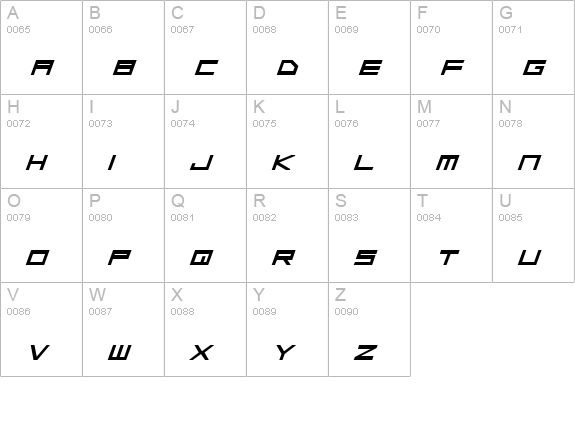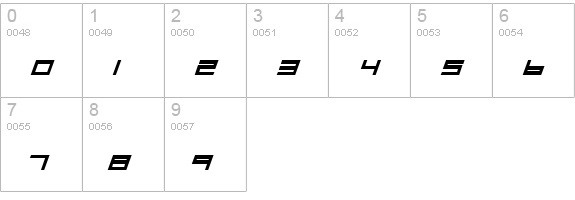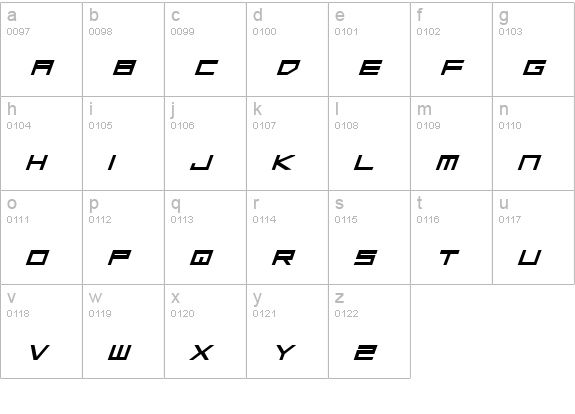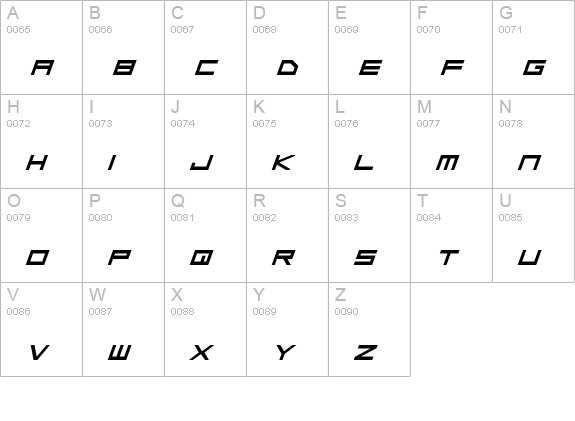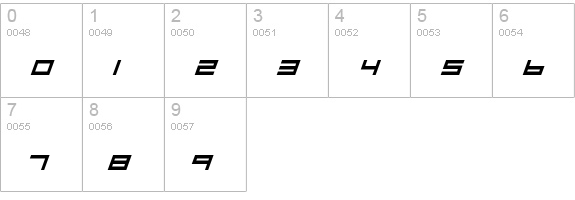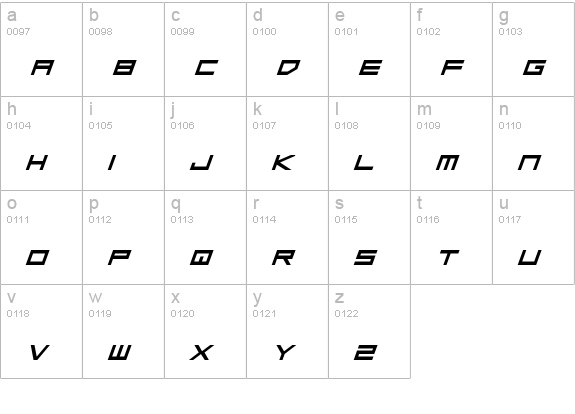
Low Gun Screen Bold ExpItalic is a strong, high-contrast variant in the Low typeface family \xE2\x80\x94 well suited to headlines, attention-grabbing titles, and strong calls-to-action.
Low Gun Screen Bold ExpItalic font is a striking and modern typeface that exudes confidence and style. Its bold and angular design makes it perfect for projects that require a strong and impactful look. The italicized version adds a touch of elegance and sophistication to any text. This unique font is available for free download at FontsMarket.com, making it easily accessible for all designers and creatives looking to enhance their projects with a cutting-edge typeface. With its versatile design and edgy aesthetic, Low Gun Screen Bold ExpItalic font is sure to make a bold statement in any design application.